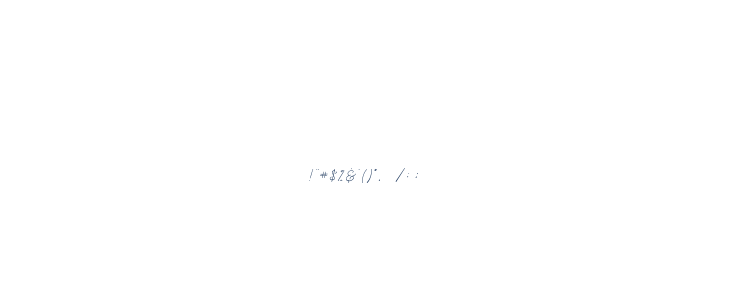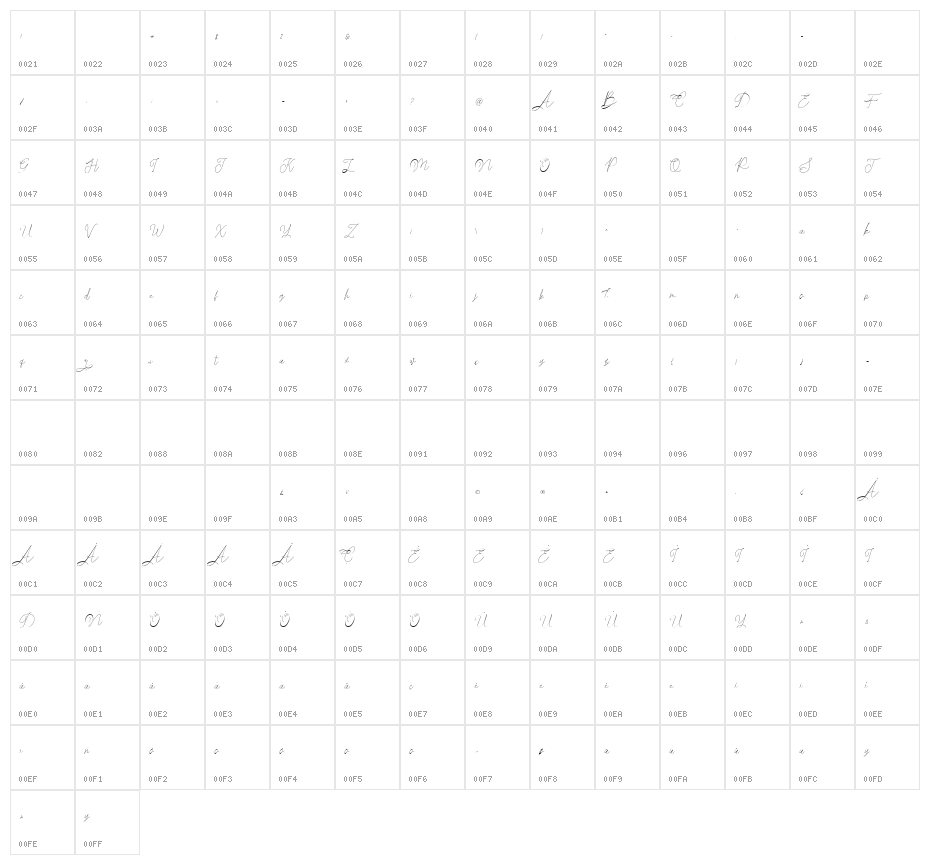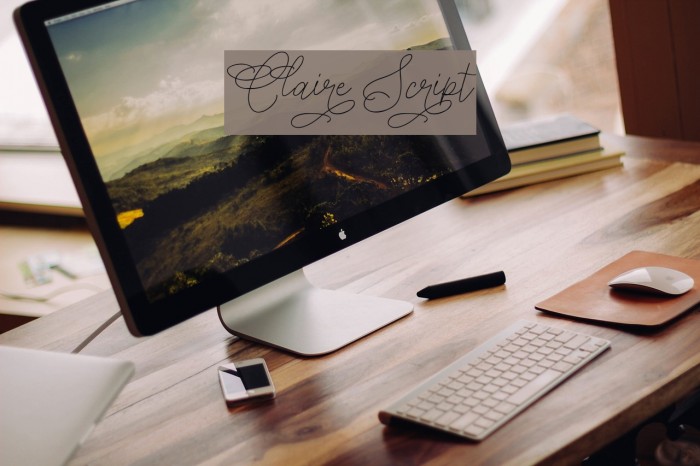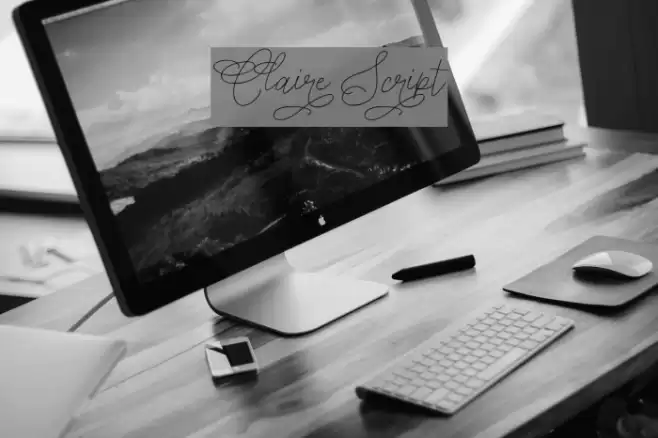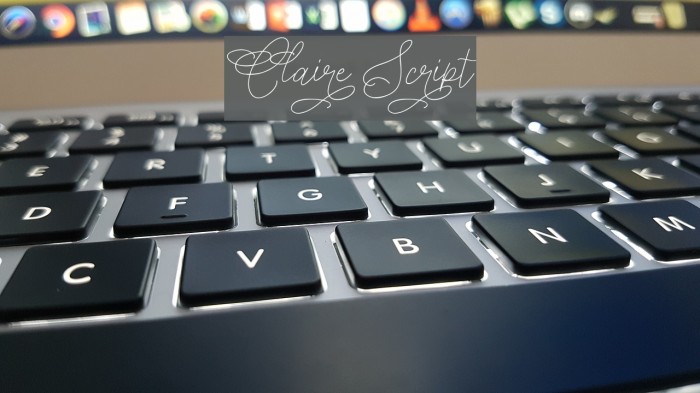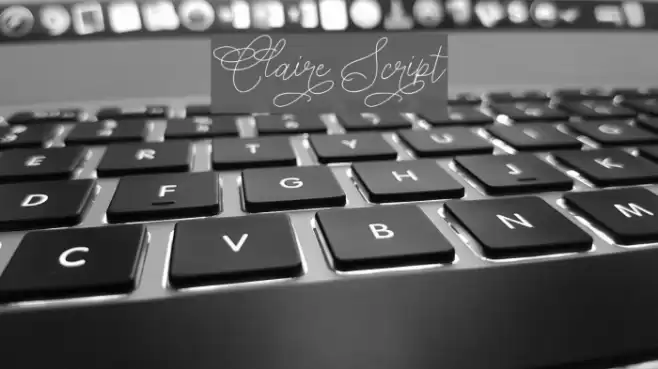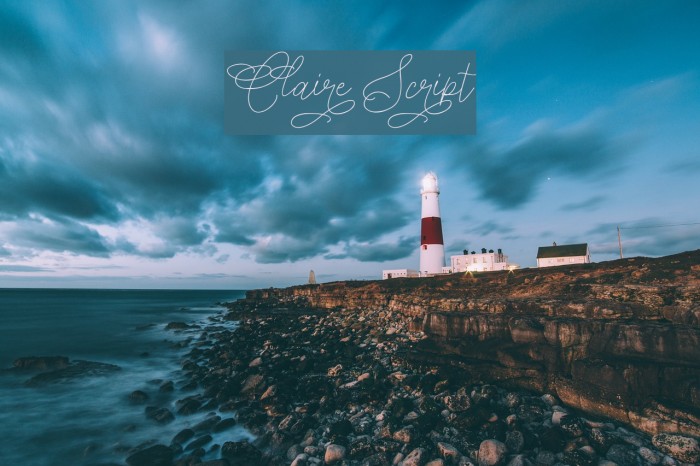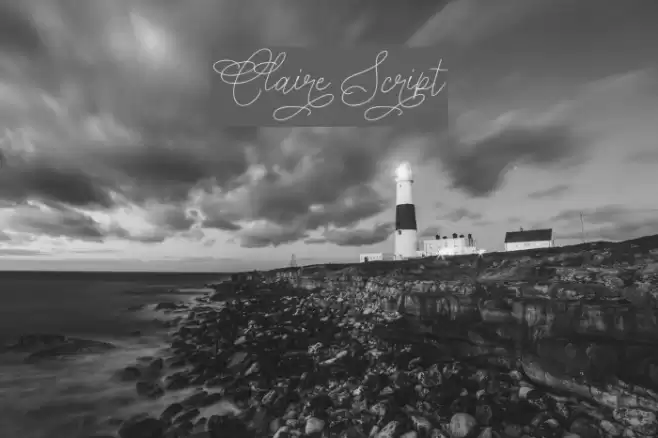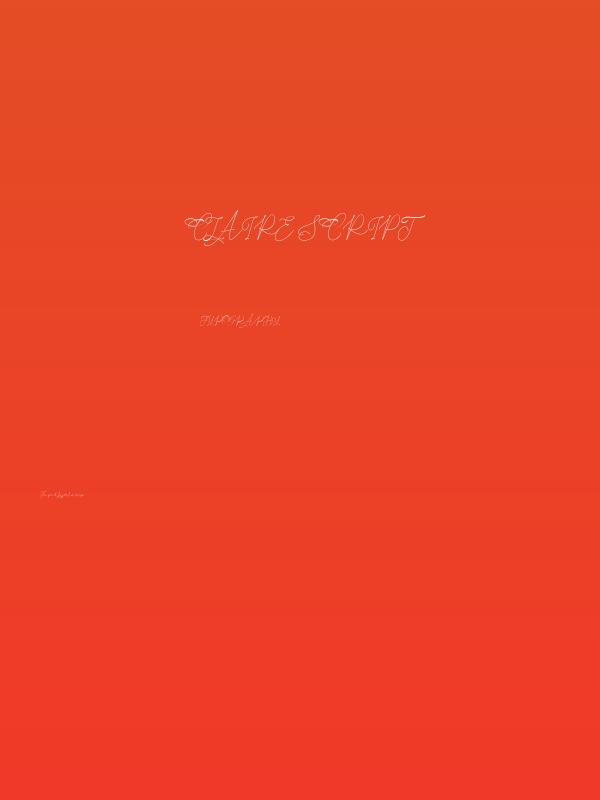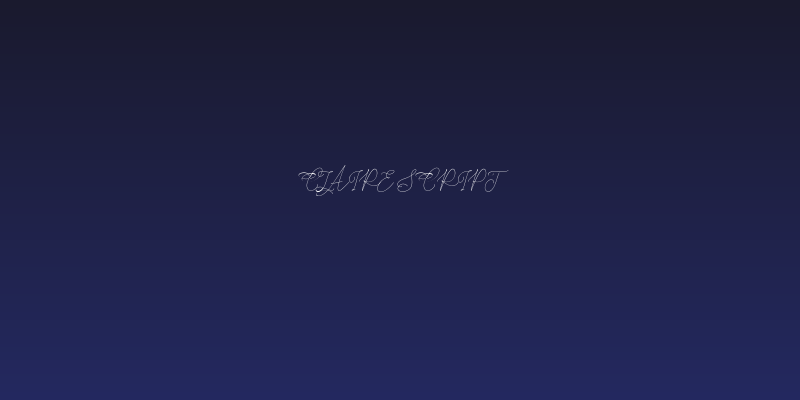
Claire Script Font
Claire Script Description
This elegant script font features delicate, flowing lines that emulate the fluidity of handwritten calligraphy. Each character is intricately designed with graceful curves and loops, creating a sense of sophistication and charm. The uppercase letters are particularly ornate, with extended flourishes that add a touch of drama and elegance. The lowercase letters maintain a consistent style, with smooth connections between characters, enhancing readability while preserving the decorative nature of the script. The font includes a full set of numerals and a selection of special characters, all designed to complement the overall aesthetic. Its thin strokes and high contrast give it a refined appearance, making it suitable for formal and decorative applications.
| Use Case | Invitations, Branding, Decorative text |
| Proposed Projects | Ideal for wedding invitations, elegant branding, greeting cards, and decorative headlines. |